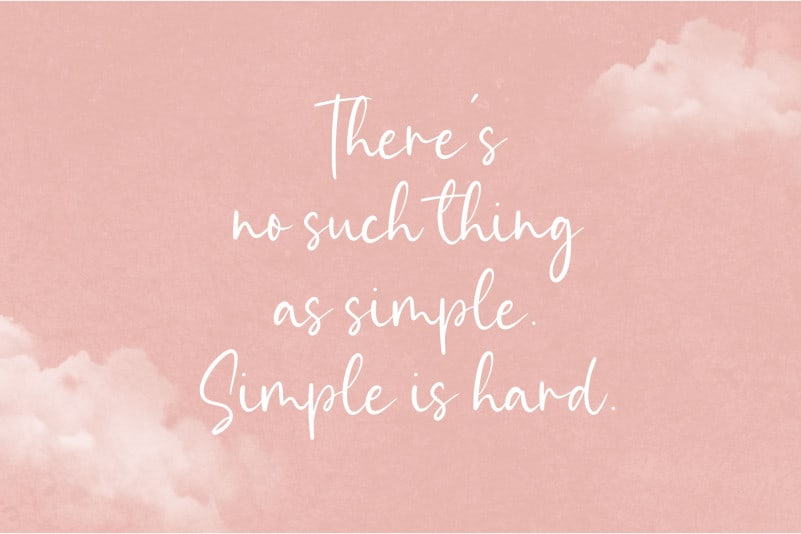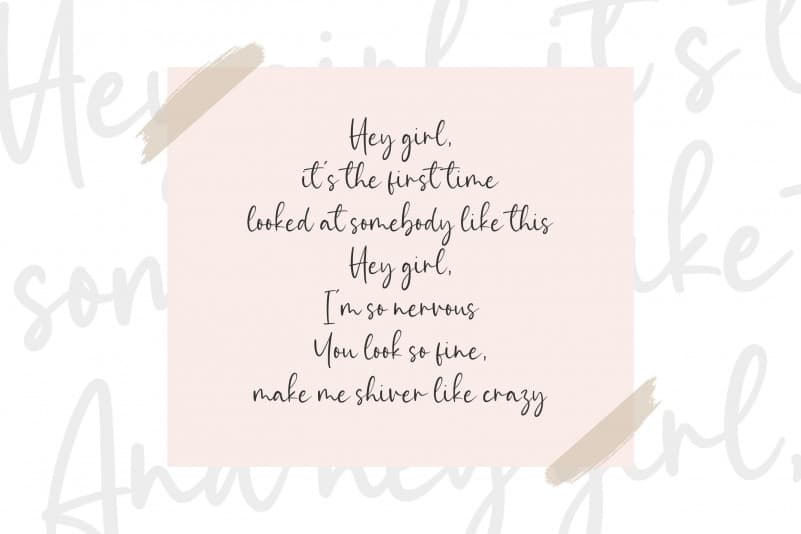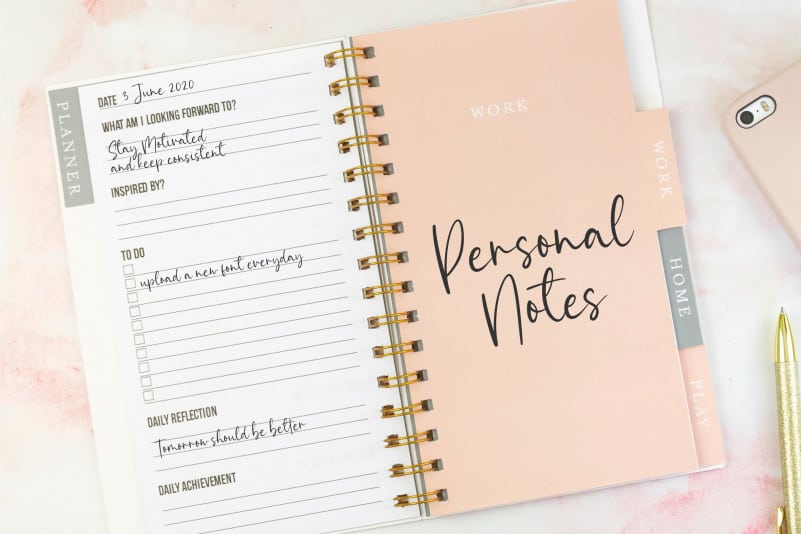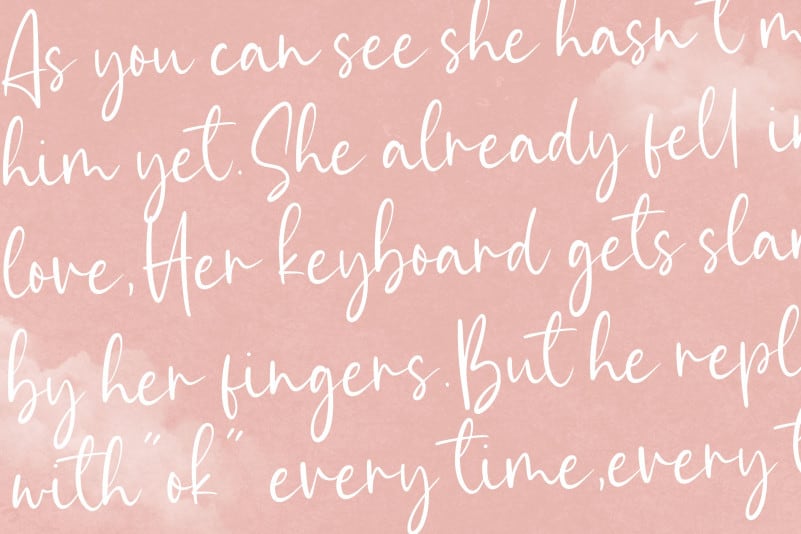
Simplemind Modern Handwritten Font
Proudly Present, Simplemind Modern Handwritten Font.
Simplemind is a Modern Handwritten font.
It is perfect for product packaging, branding project, megazine, social media, wedding, or just used to express words above the background.